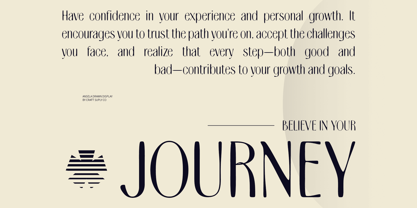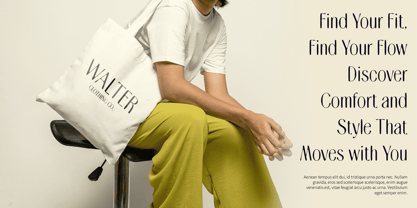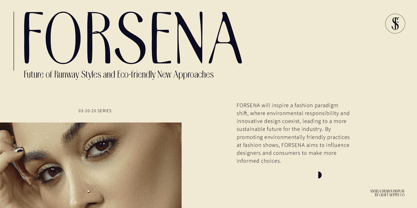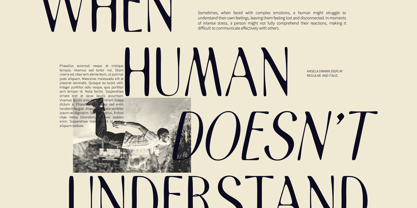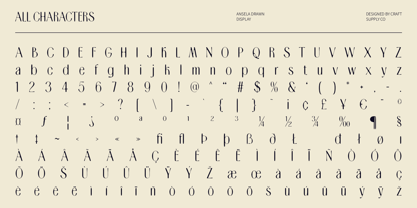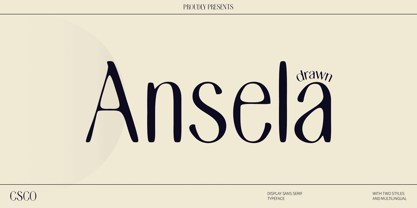
Ansela Drawn
by Craft Supply Co
The Ansela Drawn Font Family was designed by Trio Nazzar Saputra, Wahyu Hadi Yuana and published by Craft Supply Co. Ansela Drawn contains 2 styles and family package options. More about this family
Ansela Drawn Font: Where Modern Elegance Meets Handcrafted Charm
Contemporary Sans Serif with a Drawn Effect
Ansela Drawn is a modern sans serif font that beautifully blends elegance and sophistication with a unique drawn effect. This combination creates a versatile choice for a wide array of design applications, making it an essential addition to any designer’s toolkit. The clean lines and minimalist structure of the sans serif style impart a contemporary aesthetic, while the drawn effect infuses a handcrafted quality that enhances its overall visual appeal.
Inviting and Approachable Look
The harmonious blend of modernity and artistry gives Ansela Drawn an inviting and approachable look. This font is ideal for upscale branding, elegant invitations, and refined editorial design, where capturing attention with style is paramount. Its unique characteristics ensure that it stands out while maintaining a sense of warmth and accessibility, making it suitable for various audiences.
Elegance and Adaptability Across Media
Ansela Drawn’s elegance is complemented by its adaptability, ensuring it remains stylish and functional across both digital and print media. Whether utilized in website typography, social media graphics, or print collateral, this font effectively conveys a refined yet artistic message. Its versatility allows it to thrive in various contexts, from high-end fashion brands to creative event promotions.